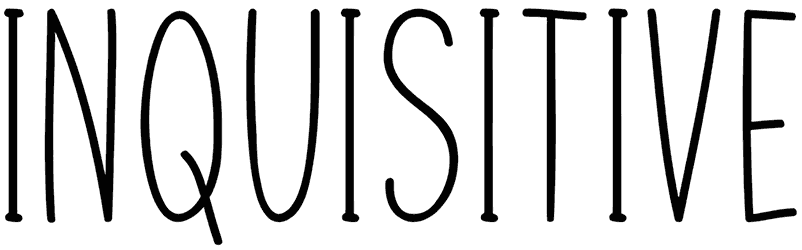
Inquisitive Font
Designed byMd Shohail Bhuian
Inquisitive is a well-designed script font that catches your attention at first sight. This handwritten font has a minimal style shining in front of the viewer’s eye and can be helpful for several cases.
For instance, you may use it in websites, social media posts, and applications; however, it does not support lowercase letters and numbers. This farmhouse font’s letters are thin and have sharp edges, creating a pleasant feeling. So give it a try now.